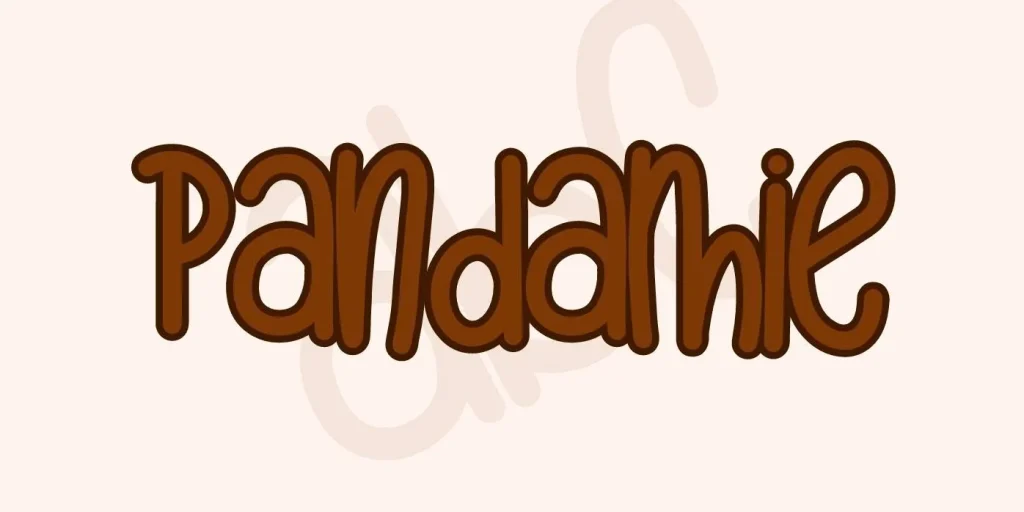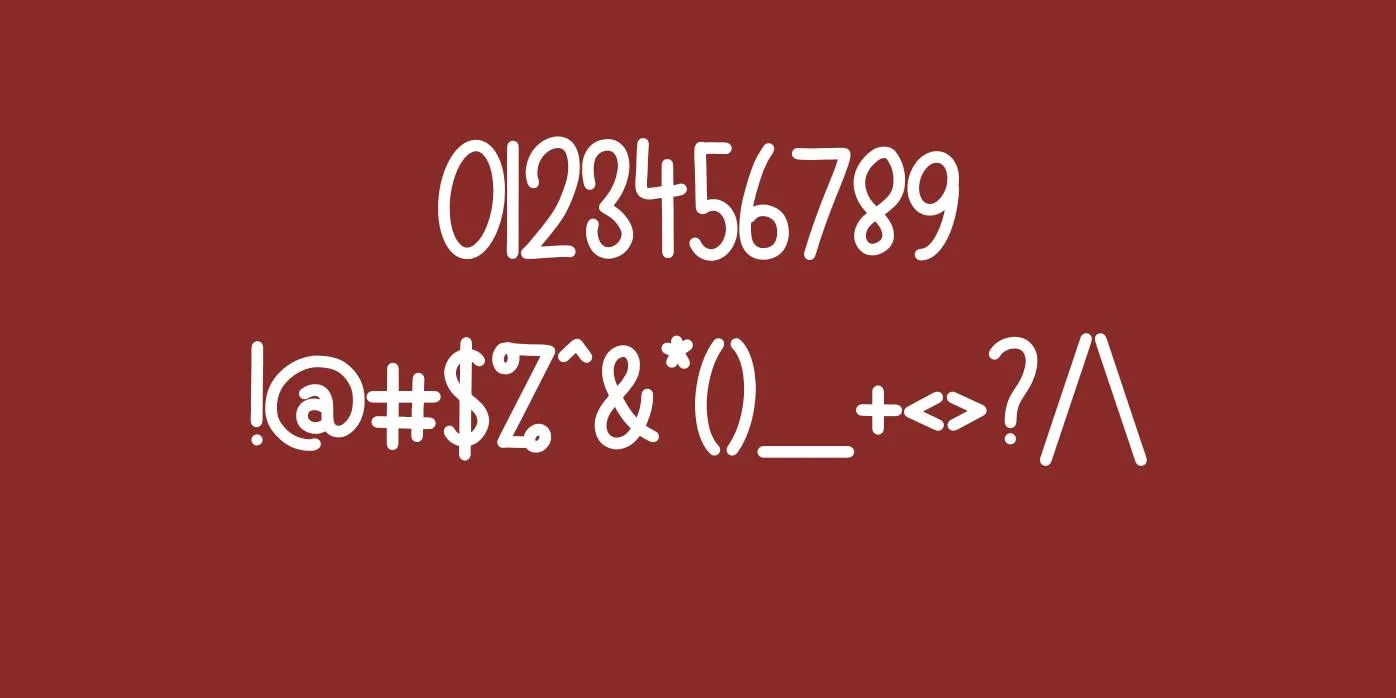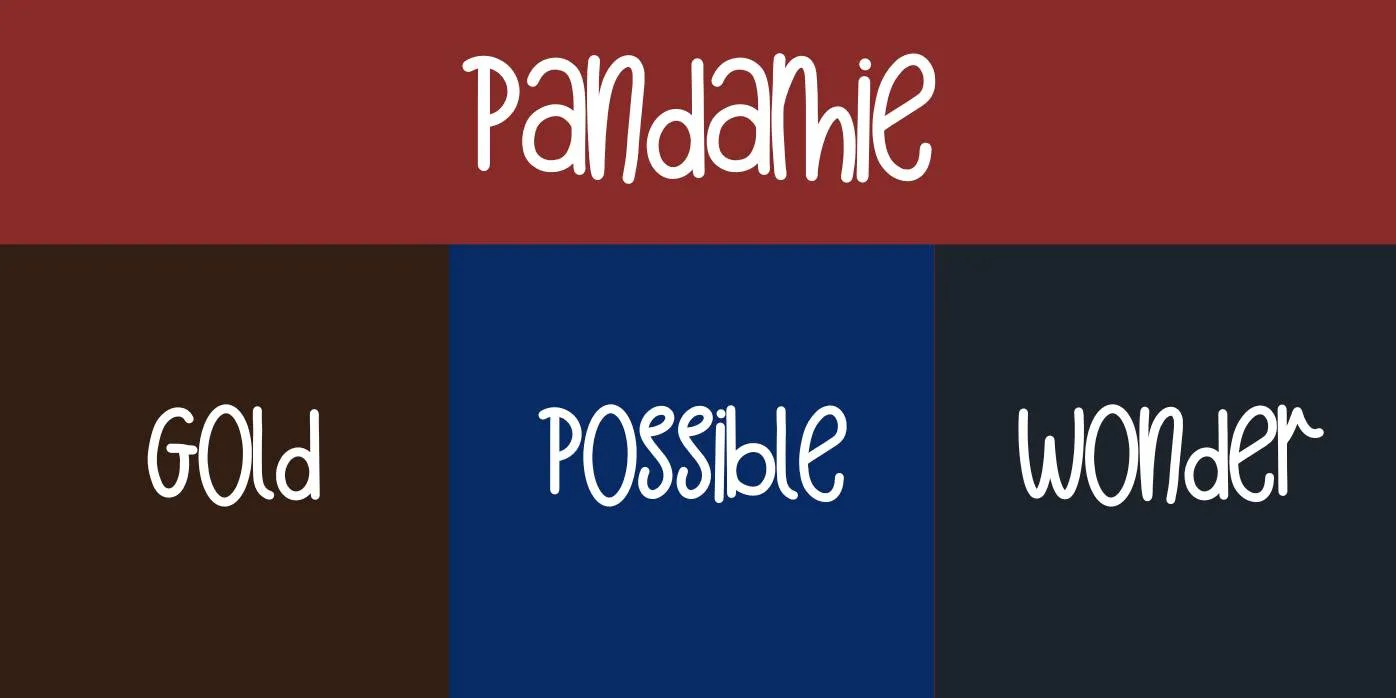
Introducing a beautiful typeface named Pandamie Font, this font comes in the script category that was made by Nanang Jamaludin and released by Integritype Studios.
Design Guideline For Working With Pandamie Font
This font has a fantastic, cute, and incredible appearance that can give a bright, sweet, and attractive feel to your logos, titles, posters, banners, captions, headlines, newspapers, flyers, billboards, online ads, tags, signatures, and a lot more purposes.
This lettering is a great choice for any sort of display like labels, greeting cards, t-shirts, signage, quotes, subtitles, book covers, apparel, headlines, posters, banners, articles, magazines, content, and a lot more displays. This font style could be make a well pair with love font.
This font style would be a brilliant selection for business outlets, themes, newspapers, flyers, promotional materials, factory or store names, covers, wedding cards, offer cards, and many other design projects.
What font is Pandamie Font?
This font is a script/handwritten category that was made by Nanang Jamaludin and released by Integritype Studios.
What font is similar to Pandamie Font on Google Fonts?
Kalam Font is one of the best alternatives to this typeface design and its incredible texture.
Is Pandamie Font a good font?
This font has cute, sweet, and rounded characters and stunning features that can make a display more gorgeous and attention-grabbing.